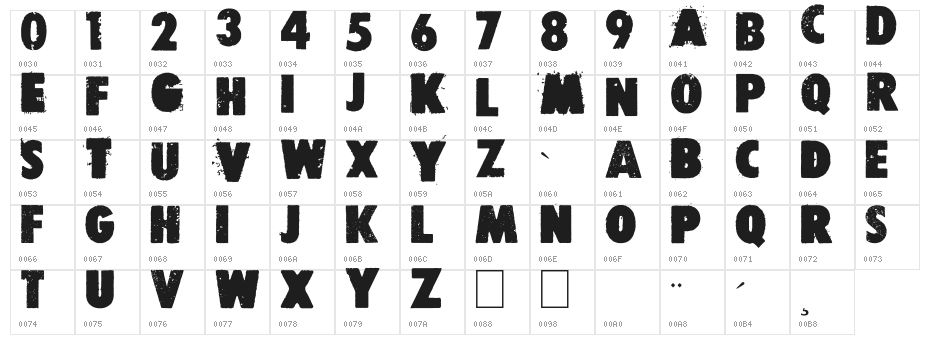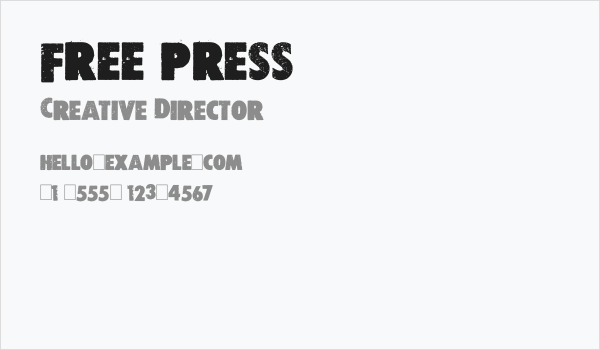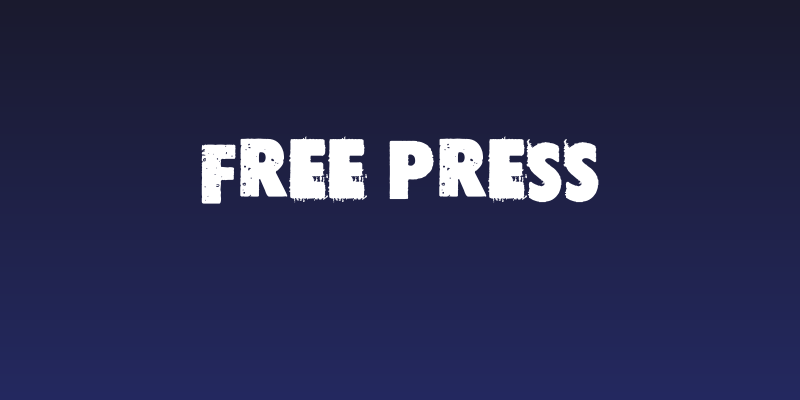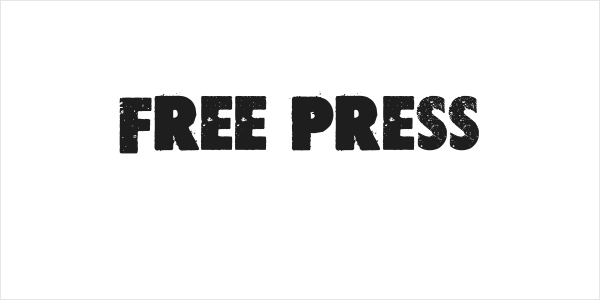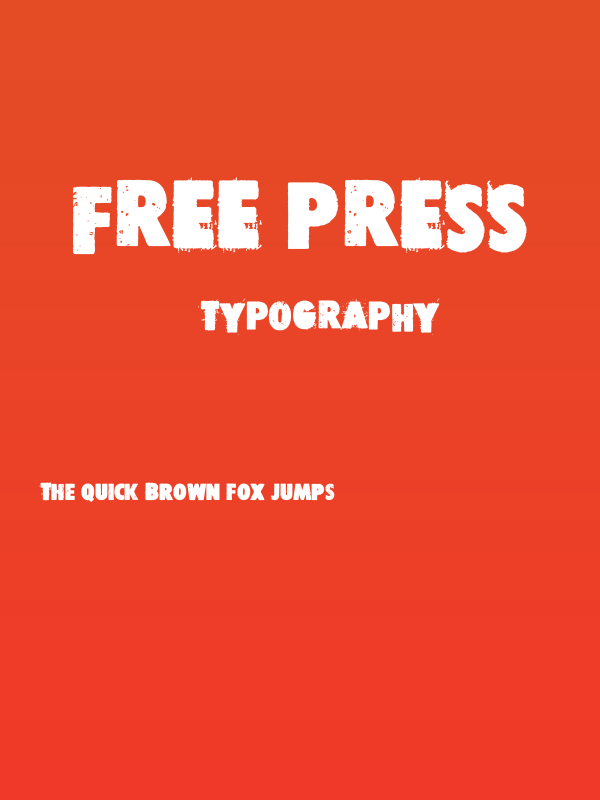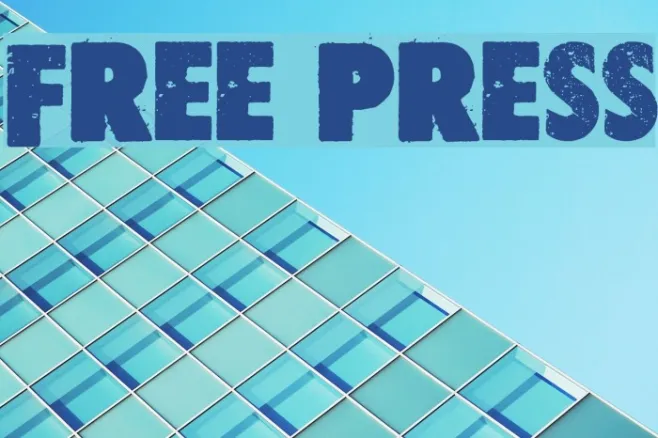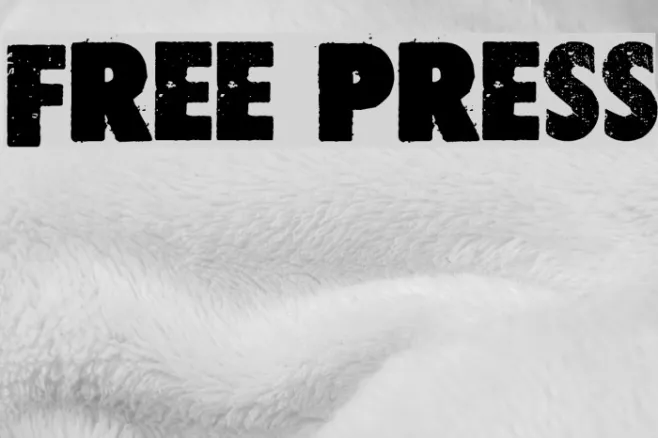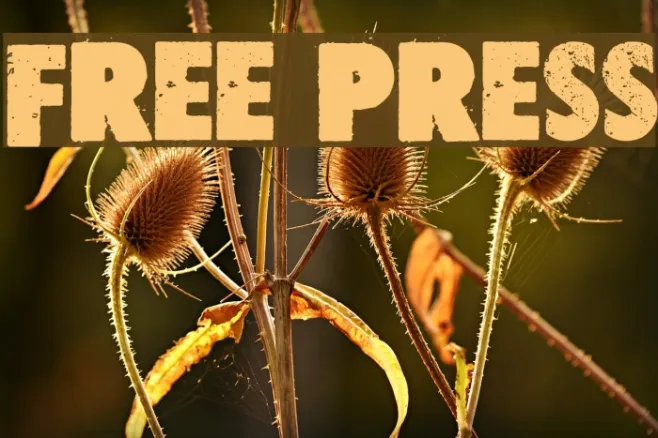
Free press Font
Free press Description
This font features a bold, distressed style with a grunge texture that gives it a rugged and edgy appearance. The characters are uppercase and numerals, each with a unique worn-out look that suggests a vintage or industrial feel. The strokes are thick and uneven, adding to the font's boldness and making it stand out in any design. The texture varies across characters, providing a dynamic and eye-catching effect. This font is ideal for projects that require a strong, impactful visual statement, such as posters, album covers, or branding for edgy or alternative brands.
| Proposed Projects | Ideal for posters, album covers, branding for alternative brands, and any design needing a strong visual impact. |